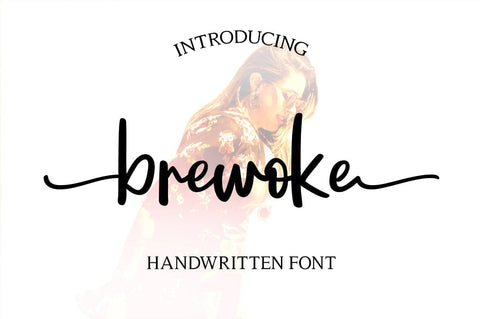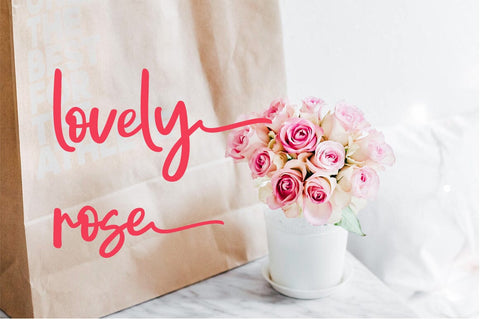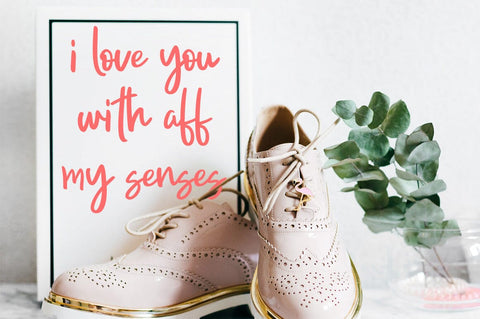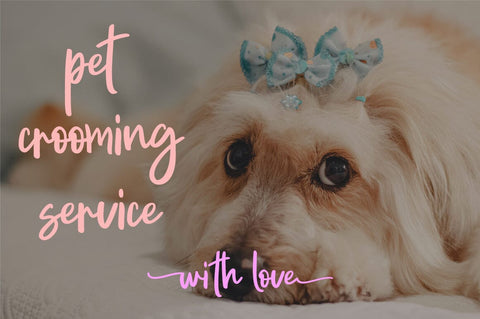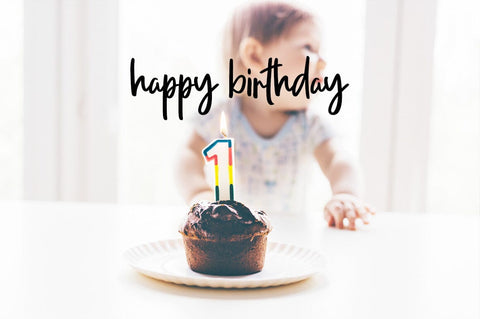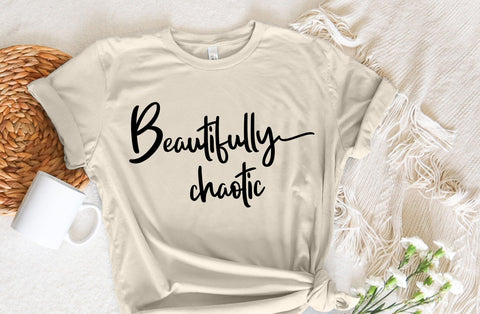
Brewoke – Handwritten Script Font | Modern Brush Lettering Font for Cricut, Wedding & Crafts
Brewoke is a beautiful handwritten script font with a modern brush lettering style, elegant flowing strokes, and a natural handwritten feel. This versatile script font is perfect for adding a personal, feminine, and stylish touch to your creative projects.
Use Brewoke Handwritten Script Font for wedding invitations, wedding stationery, birthday designs, greeting cards, quotes, logos, branding, social media graphics, T-shirts, mugs, signs, and DIY crafts.
Brewoke is ideal for designers, crafters, small businesses, and creatives looking for a modern handwritten font with a beautiful brush lettering style.